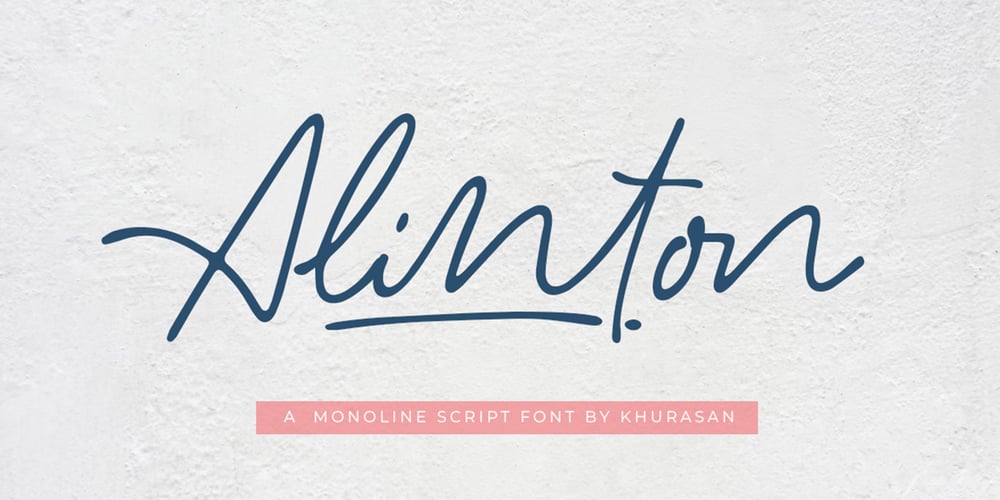
Alinton Font Family was designed by Syaf Rizal and published by Khurasan. Alinton contains 1 styles and family package options. Introducing Alinton Signature Typeface – a font that is very fresh and unique style handmade. Alinton Signature Typeface is perfectly suited to logo, stationery, poster, apparel, branding, wedding invitation, card, tagline, layout design, and much more !!